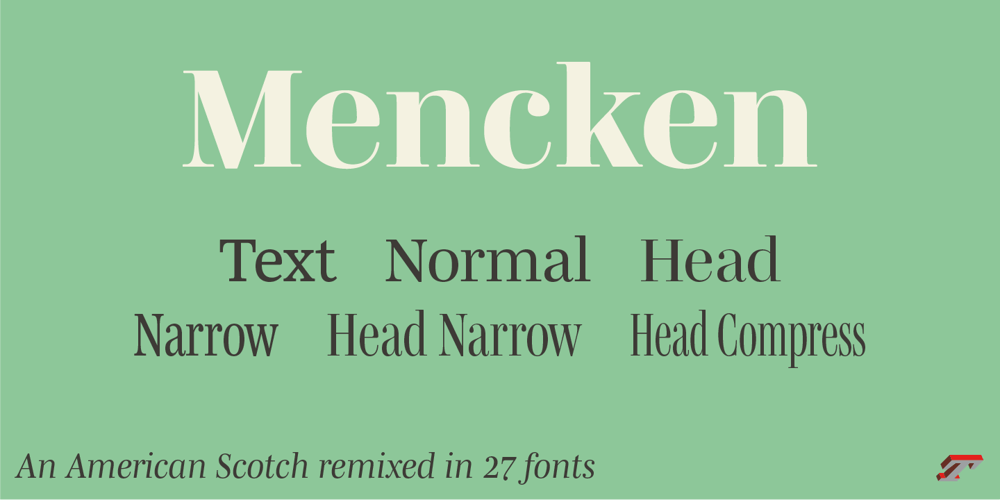
Mencken Std
Mencken Std font
Mencken Std Font Family was designed by Jean François Porchez and published by Typofonderie. Mencken Std contains 27 styles and family package options. An American Scotch remixed in 27 fonts Mencken has twenty seven styles, divided into three widths, three optical sizes, romans and italics. Generally, optical size typeface families belong to a same common construction. It falls into the same category of type classification, while presenting different x-heights or contrasts. Mencken is unique because it is designed according to different axis and optical sizes. Firstly, Mencken Text is a low-contrast transitional typeface, designed on an oblique axis, asserting horizontal with featuring open counters. Its capitals follow Didots to better harmonize the rest of the family. On the other side of the spectrum, Mencken Head (and narrow variations) is designed on a vertical axis, high contrast, in a contemporary Didot style.The Mencken is therefore a typeface answering to different sorts of uses, whose design is different according to its uses: from oblique axis in small size to vertical axis in large sizes. Vertical proportions (x-height, capitals height, etc.) were calibrated to be compatible with many Typofonderie typeface families. Lucie Lacava and I followed the idea launched by Matthew Carter few years ago for some of his typefaces intended for publications.From Baltimore Sun’s project to Typofonderie’s MenckenIt is a bespoke typeface for American newspaper The Baltimore Sun started at the end of 2004 which marks the beginning of this project. The story started with a simple email exchange with Lucie Lacava then in charge of redesigning the American East Coast newspaper. As usual, she was looking for new typeface options in order to distinguish the redesign that she had started. At the time of its implementation, a survey of the newspaper’s readers has revealed that its previous typeface, drawn in the mid-1990s, was unsatisfactory. The Mencken was well received, some reader responses was particularly enjoyable: “It’s easier to read with the new type even though the type is designed by a French.”Why it is called Mencken?The name Mencken is a tribute to H. L. Mencken’s journalistic contributions to The Sun. According to the London Daily Mail, Mencken ventured beyond the typewriter into the world of typography. Because he felt Americans did not recognize irony when they read it, he proposed the creation of a special typeface to be called Ironics, with the text slanting in the opposite direction from italic types, to indicate the author’s humour. Affirming his irreverence, the Mencken typeface does not offer these typographic gadgets.Henry Louis Mencken (1880 — 1956) was an American journalist, satirist, cultural critic and scholar of American English. Known as the “Sage of Baltimore”, he is regarded as one of the most influential American writers and prose stylists of the first half of the twentieth century. He commented widely on the social scene, literature, music, prominent politicians and contemporary movements.Creative Review Type Annual 2006Tokyo TDC 2018